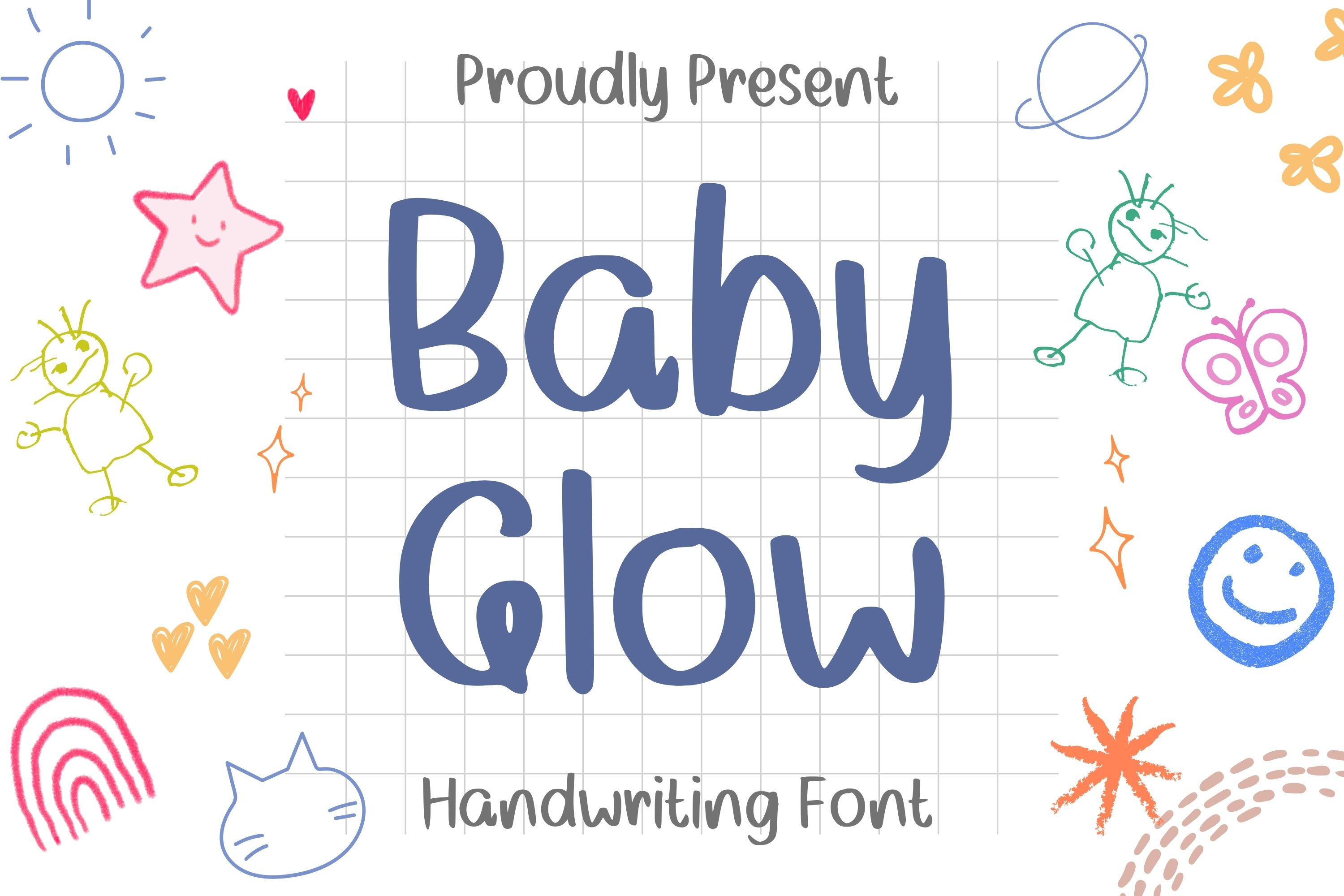
Baby Glow is a cute and simple lettered handwritten font that can be used for all chalkboard quotes or teaching material! Its authentic look will add a realistic feel to your designs.